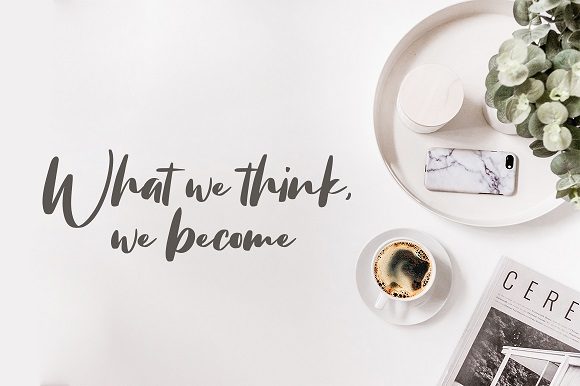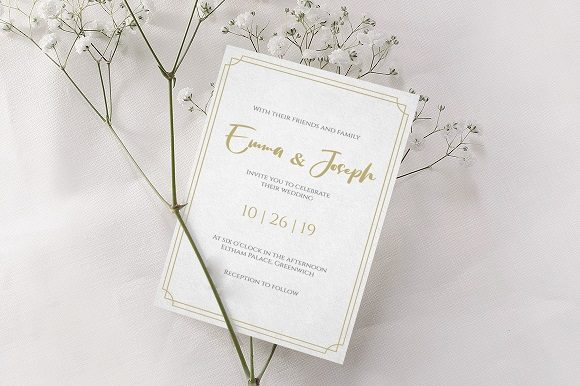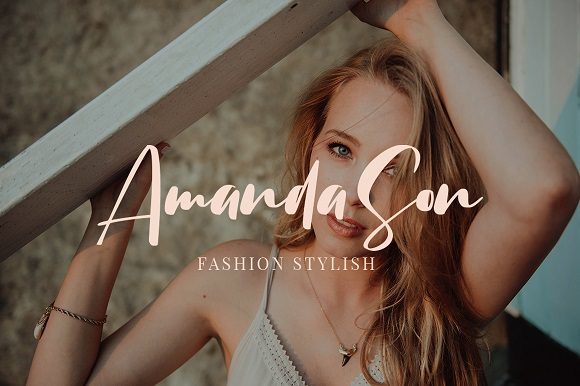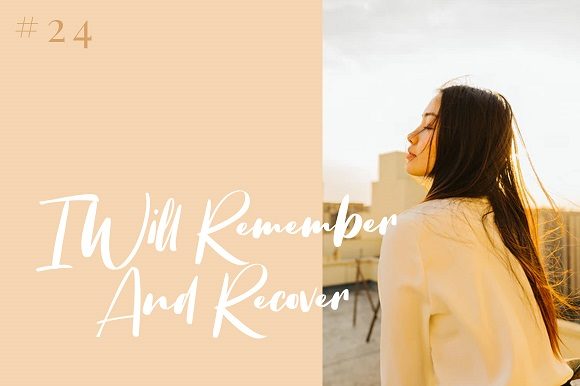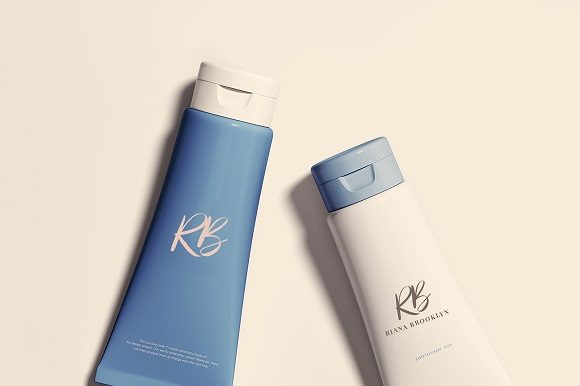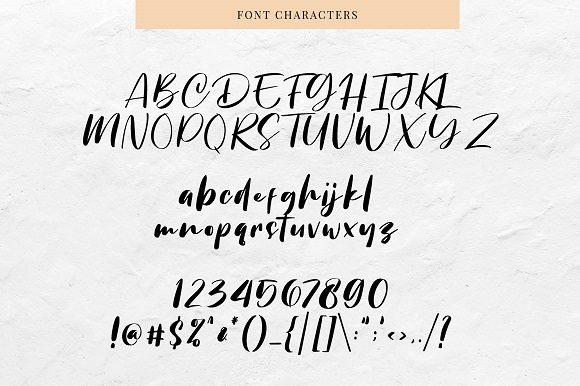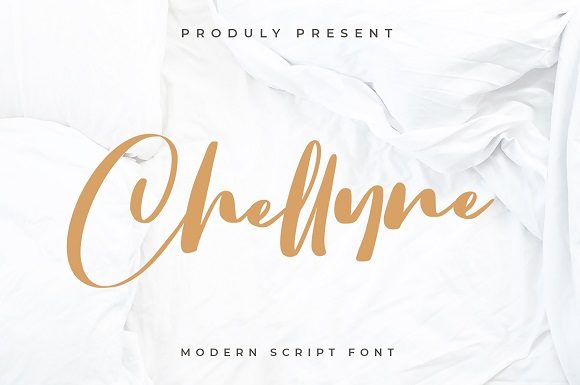
Chellyne Font: The Sweet and Soft Hand-Lettered Font for Your Creative Projects
Are you looking for a font that can add a touch of sweetness and elegance to your creative projects? Look no further than Chellyne Font, a beautiful hand-lettered handwritten font that is sure to capture your heart. With its authentic feel and versatile design, Chellyne is the perfect choice for designers and crafters who want to create stunning wedding invitations, stationary art, social media posts, and greeting cards.
What is Chellyne Font?
Chellyne Font is a sweet and soft hand-lettered font that is designed to bring a touch of warmth and personality to your creative projects. Its authentic feel makes it perfect for creating beautiful and unique designs that stand out from the crowd. Whether you’re a designer, crafter, or DIY enthusiast, Chellyne Font is a great choice for anyone looking to add a personal touch to their work.
Features of Chellyne Font
Chellyne Font has several features that make it a great choice for designers and crafters. Some of its key features include:
- Hand-lettered design: Chellyne Font is a hand-lettered font, which means that each letter is carefully crafted to create a unique and authentic look.
- Sweet and soft feel: The font has a sweet and soft feel that makes it perfect for creating beautiful and elegant designs.
- Versatile design: Chellyne Font is a versatile font that can be used for a wide range of creative projects, from wedding invitations to social media posts.
- Easily readable: Despite its hand-lettered design, Chellyne Font is easily readable, making it perfect for use in body text and other applications where legibility is important.
Uses of Chellyne Font
Chellyne Font is a versatile font that can be used for a wide range of creative projects. Some of the most popular uses for Chellyne Font include:
- Wedding invitations: Chellyne Font is a popular choice for wedding invitations, thanks to its elegant and sophisticated design.
- Stationary art: The font is also great for creating beautiful stationary art, including notecards, journals, and other paper crafts.
- Social media posts: Chellyne Font can add a touch of personality to your social media posts, making them stand out from the crowd.
- Greeting cards: The font is perfect for creating cute and personalized greeting cards for special occasions.
Tips for Using Chellyne Font
Here are a few tips for using Chellyne Font in your creative projects:
- Use it sparingly: Chellyne Font is a beautiful font, but it can be overwhelming if used too much. Use it sparingly to add a touch of elegance to your designs.
- Pair it with other fonts: Chellyne Font pairs well with other fonts, including serif and sans-serif fonts. Experiment with different pairings to find the one that works best for your project.
- Experiment with colors: Chellyne Font looks great in a variety of colors, from soft pastels to bold brights. Experiment with different colors to find the one that works best for your project.
Chellyne Font is a beautiful hand-lettered font that is perfect for designers and crafters who want to add a touch of sweetness and elegance to their creative projects. With its authentic feel and versatile design, Chellyne Font is a great choice for anyone looking to create stunning wedding invitations, stationary art, social media posts, and greeting cards. Whether you’re a seasoned designer or a DIY enthusiast, Chellyne Font is sure to capture your heart and inspire your creativity.